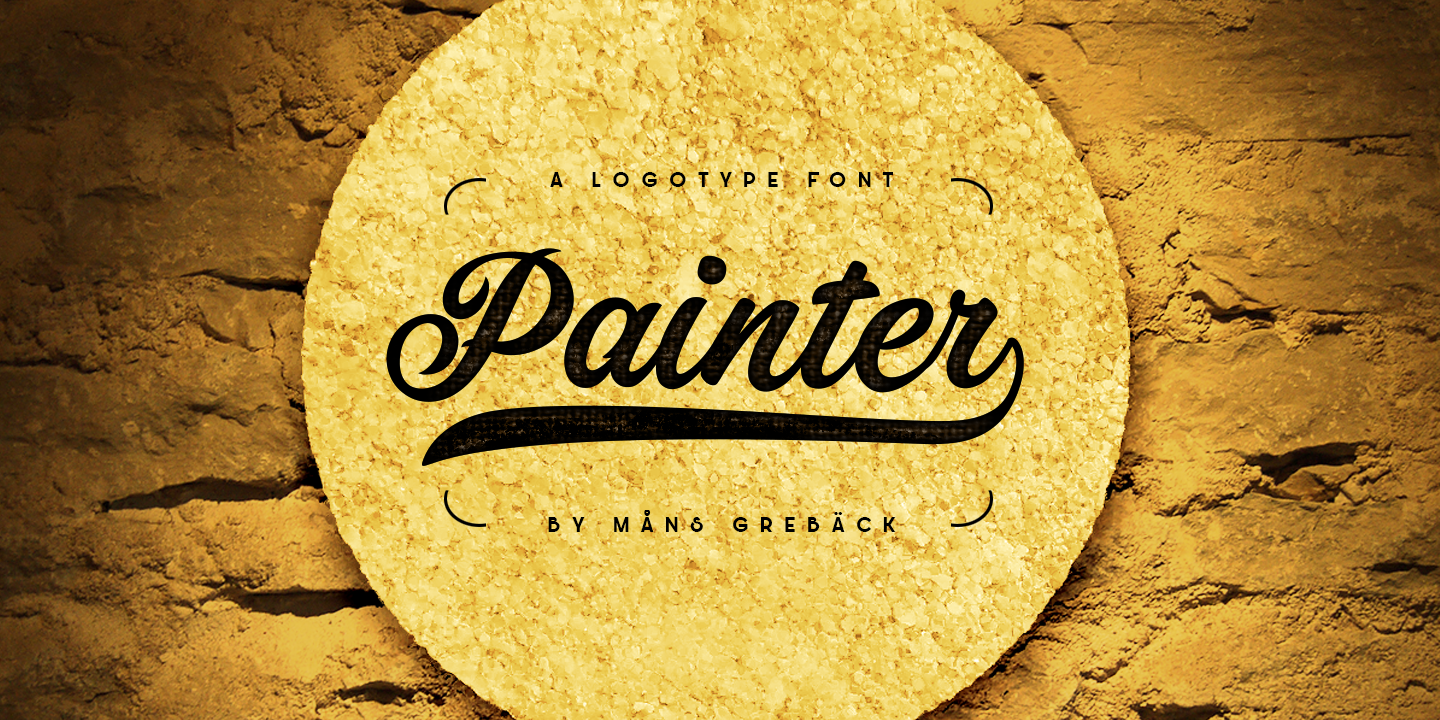
Painter Font is perfect for art gallery exhibitions, creative studio branding, artistic portfolio design, fine arts marketing, painting workshop materials, creative education resources, artistic event promotions, art supply packaging, museum exhibition labels, and expressive creative communications. This artistic typeface creates authentic artistic atmosphere in both gallery print and digital creative platforms.
What makes Painter Font exciting is its masterful capture of artistic expression with brushstroke authenticity and creative spontaneity that reflects the painter's craft. The font features organic letterforms with painterly textures and artistic character details that evoke canvas surfaces, brush movements, and creative inspiration. Its expressive design establishes an atmosphere of artistic freedom and creative mastery that resonates with artists and art enthusiasts seeking authentic creative expression and artistic excellence.
Painter Font family includes artistic variations: Light, Regular, Medium, Bold, and Brush versions, each with painterly alternates and artistic character sets. Each variant maintains the font's creative integrity while providing designers with expressive options for creating artistic typography systems and creative communication materials.
This exceptional artistic typeface brings authentic creative credibility to projects requiring expressive presentation. Whether you're designing art galleries, creative branding, or artistic marketing materials, Painter Font Free Download delivers outstanding creativity and artistic sophistication. The font's painterly proportions and artistic details ensure memorable creative connection across various artistic applications.
Art institutions and creative professionals recognize how Painter Font perfectly embodies the spirit of artistic creation and painterly excellence. Its expressive foundation combined with creative authenticity makes it essential for artistic and creative design projects. Download today and paint your designs with this exceptionally expressive artistic typography.